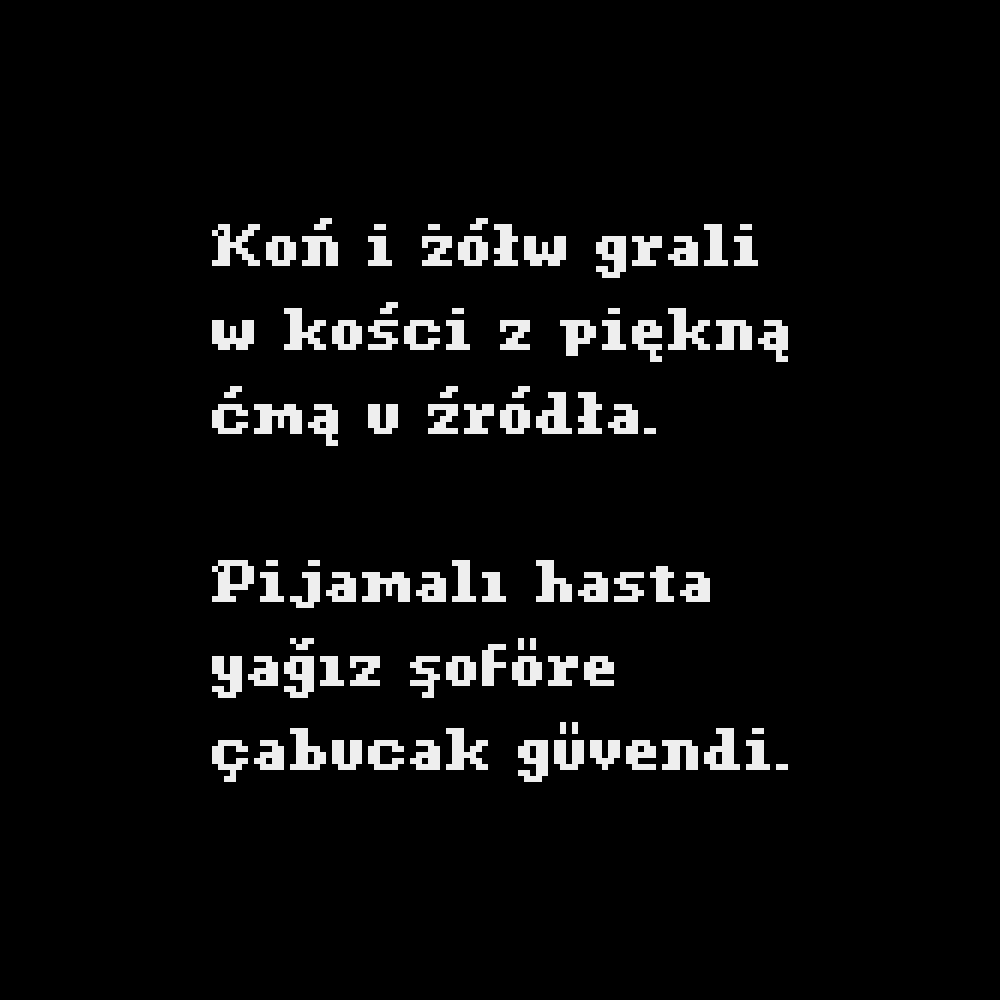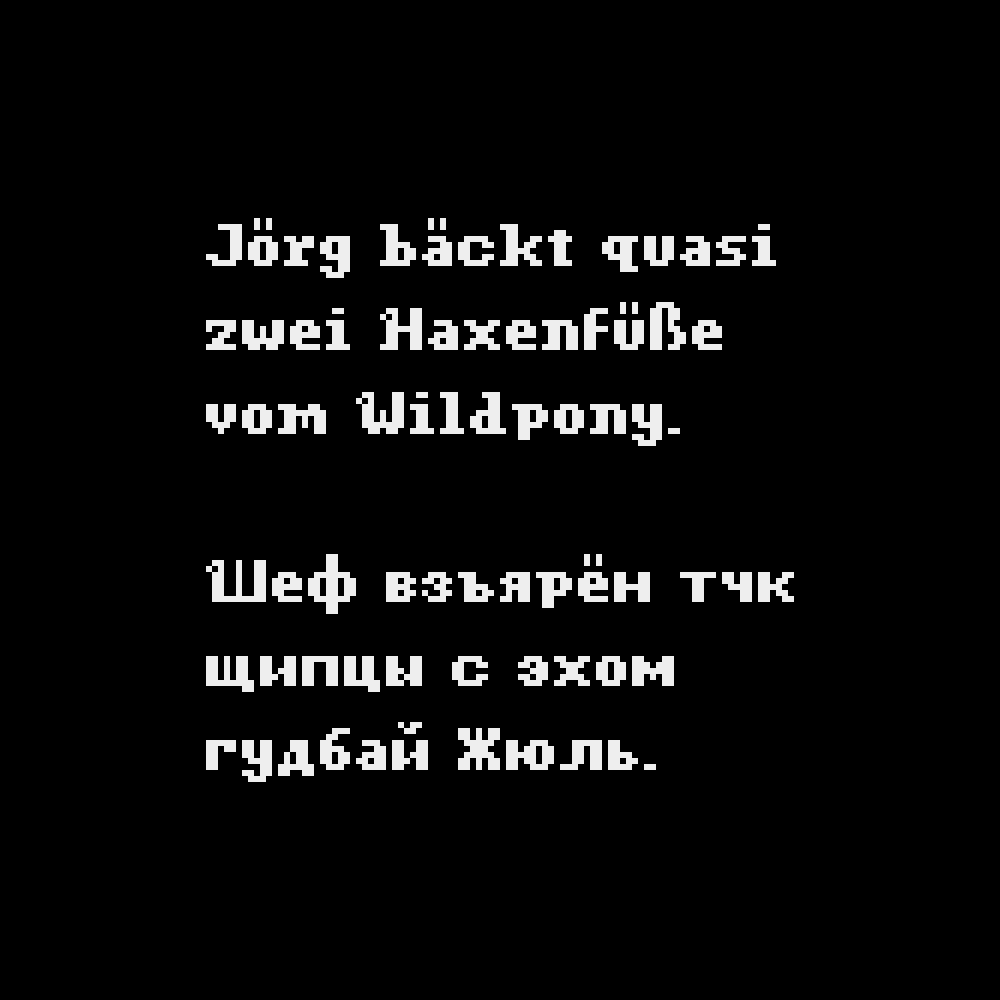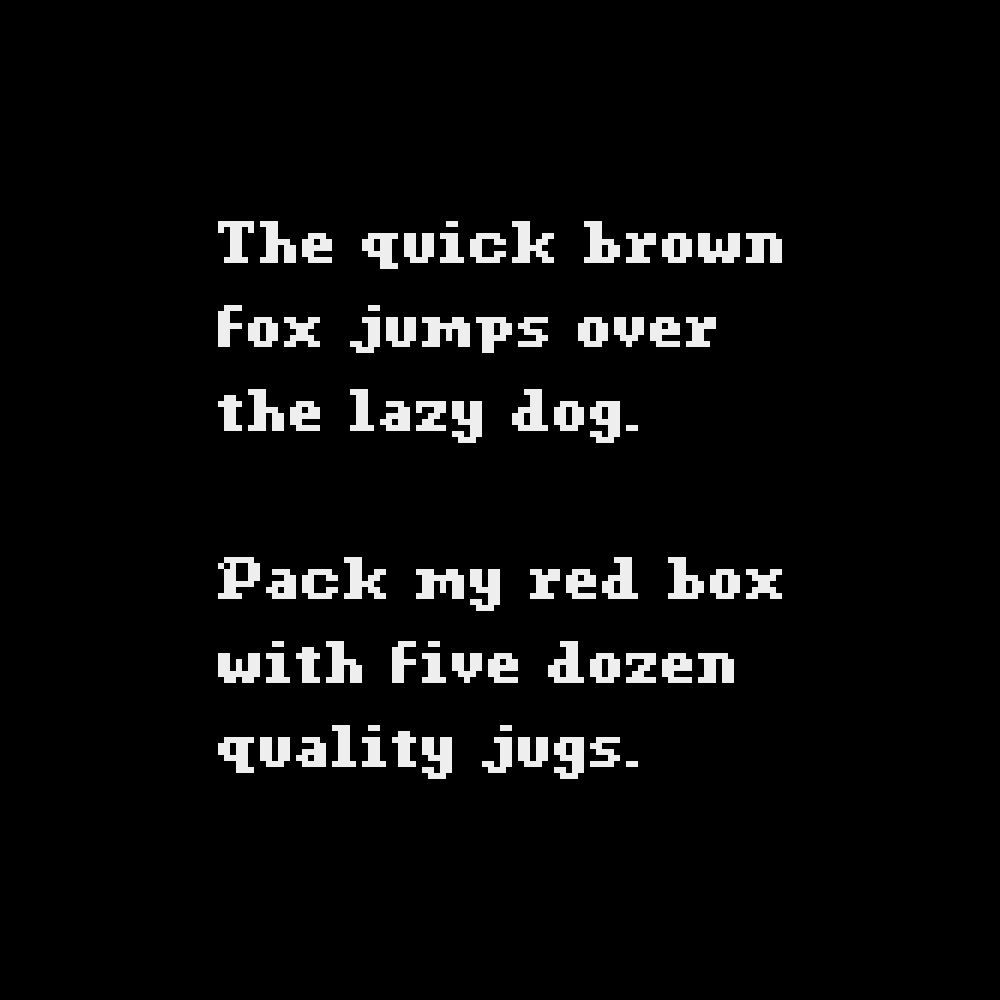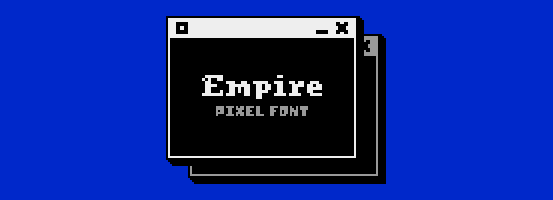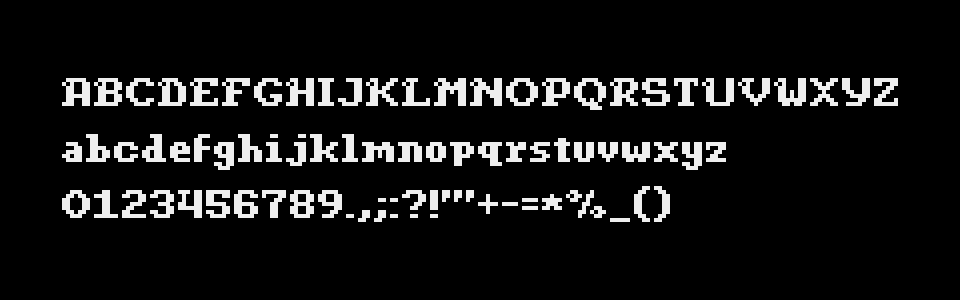
A downloadable pixel font
Empire is a fantasy, noble, 7px tall pixel font!
Full Character Set:
ABCDEFGHIJKLMNOPQRSTUVWXYZ abcdefghijklmnopqrstuvwxyz 0123456789.,;:?!"'+-=*%_() []{}~#&@©®™°^`|/\<>…€$£¢¿¡“”‘’«»‹›„‚·• ÀÁÂÄÃÅĄÆÇĆÐÈÉÊËĘĞÌÍÎÏİŁÑŃÒÓÔÖÕŐØŒŚŞẞÞÙÚÛÜŰÝŸŹŻàáâäãåąæçćðèéêëęğìíîïıłñńòóôöõőøœśşßþùúûüűýÿźżАБВГҐДЕЁЄЖЗИІЇЙКЛМНОПРСТУФХЦЧШЩЪЫЬЭЮЯабвгґдеёєжзиіїйклмнопрстуфхцчшщъыьэюя
Supported languages:
English, French, Italian, German, Spanish, Portuguese, Danish, Swedish, Norwegian, Icelandic, Hungarian, Polish, Turkish, Russian, Ukrainian…
new! v2: font redesign!
There are some letters in this font that are quite a bit missing for a complete set. The missing letters are variations with dots and dashes etc.
ґєії ҐЄІЇ ąćęłńśźż ĄĆĘŁŃŚŹŻ
Hello! All my new pixel fonts support Ukrainian and Polish (and Turkish, Hungarian, etc).
‘Passage 7’ is much less fantasy-like.
This is the ONE! Gothic but still legible, dramatic but utilitarian. Instant buy, thanks Somepx!